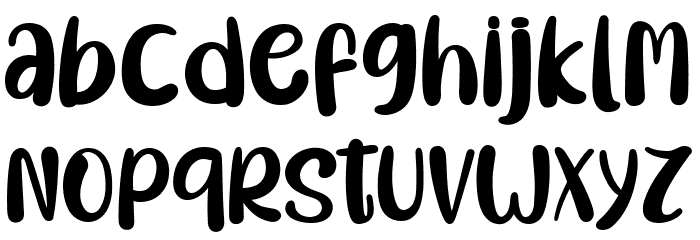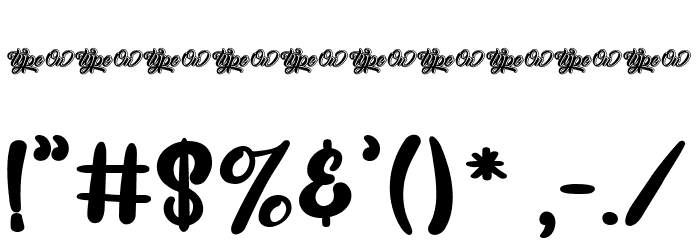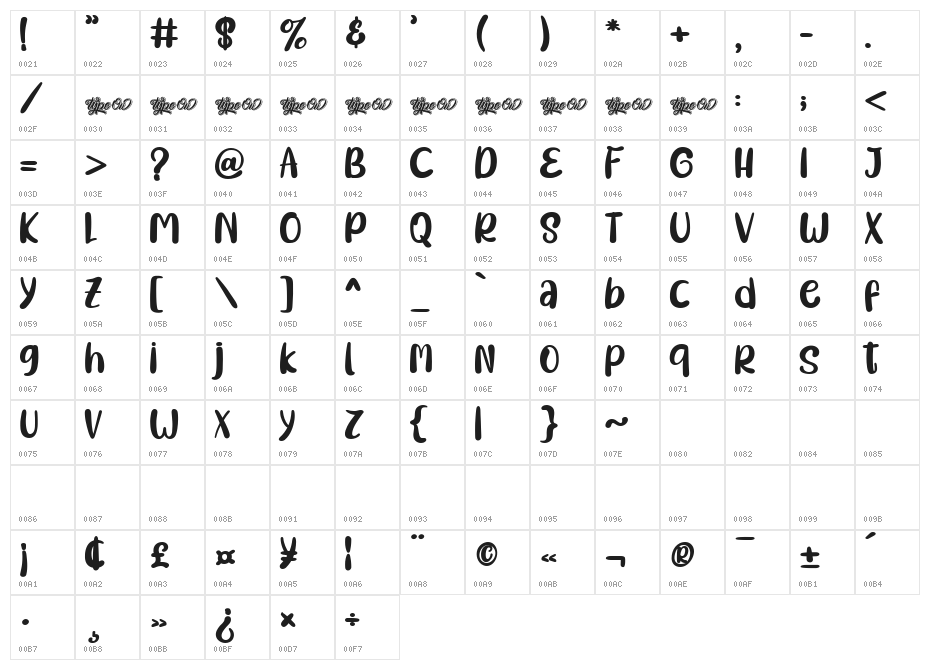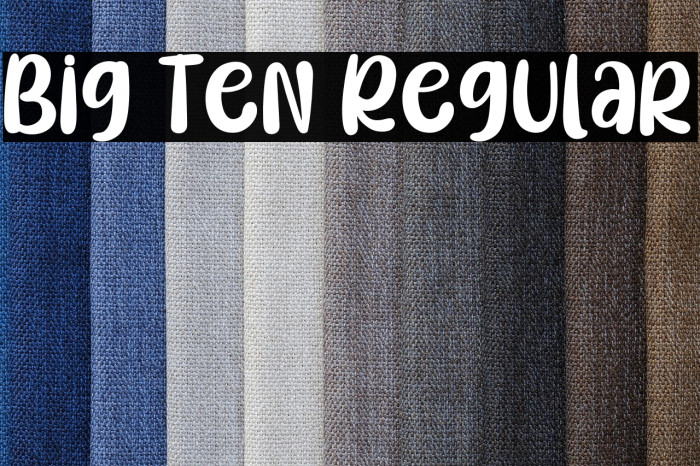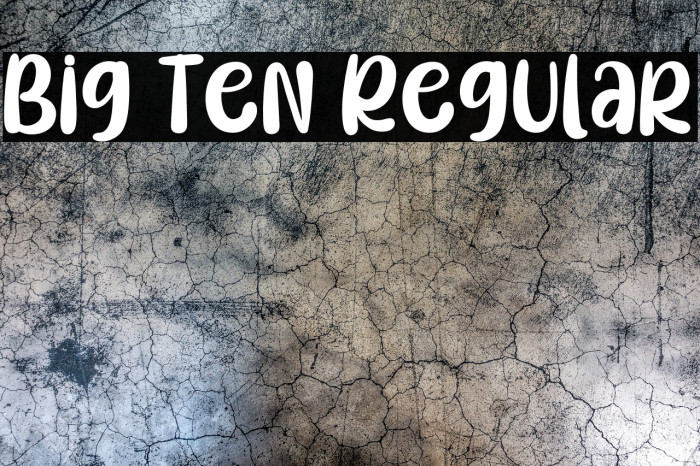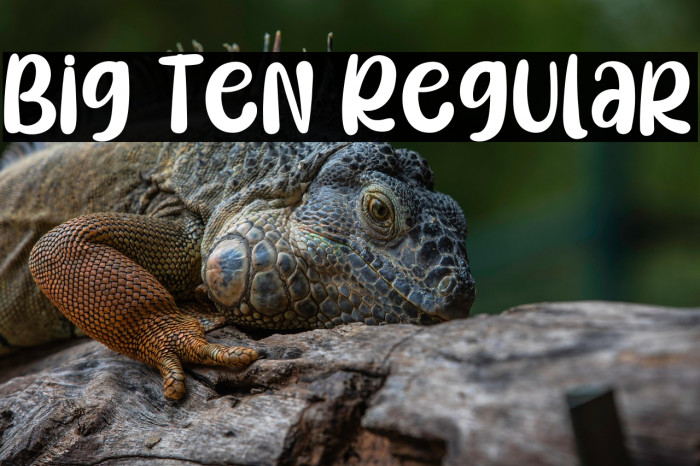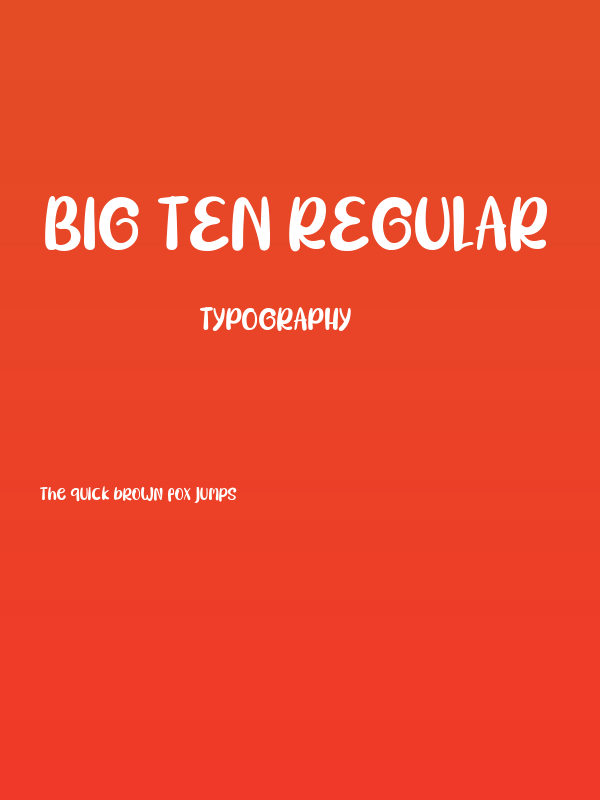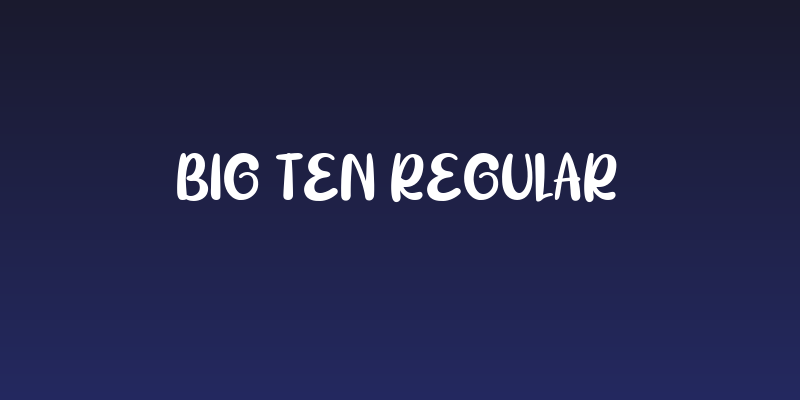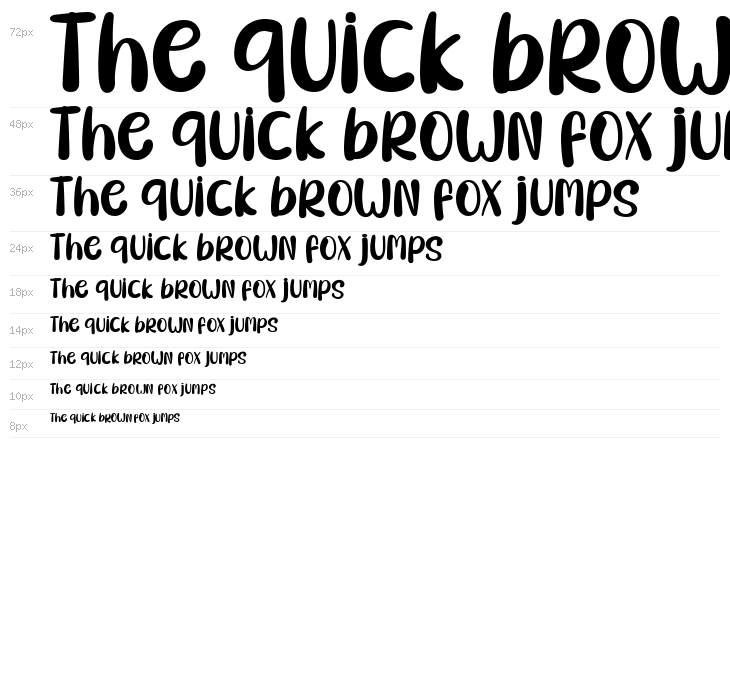
Big Ten Regular Font
This font features a bold and playful style with rounded, thick strokes that give it a friendly and approachable appearance. The characters are slightly condensed, adding to its unique charm. The uppercase and lowercase letters maintain a consistent flow, with a slight slant that adds a dynamic feel. The numerals and special characters are designed to match the overall style, ensuring cohesiveness across all elements. This font's boldness and unique character shapes make it stand out, perfect for projects that require a touch of creativity and fun.
A bold, playful font with rounded, thick strokes and a slightly condensed style.
- Font: Big Ten Regular
- Proposed Projects: Ideal for children's books, playful branding, posters, and creative advertising.
- Overall Style: Playful, Creative